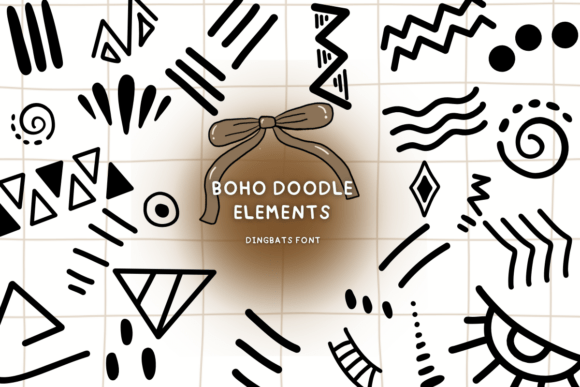
Unleashing Creativity with Boho Doodle Elements Font
Have you ever been in the middle of a design project, and suddenly, you’re stuck? You’re trying to find that perfect font to give your creation a unique touch, but nothing seems quite right. I recall a particularly frustrating moment when I was working on a wedding invitation design. My client wanted something that felt whimsical and personal, but I just couldn’t find the right fit. That’s when I discovered Boho Doodle Elements, a game-changing dingbats font that has since become a staple in my design toolkit.
What is Boho Doodle Elements?
Boho Doodle Elements is an innovatively rendered dingbats font that embodies a sketch-style aesthetic. This unique font is perfect for adding a touch of personality to a wide range of projects, from enchanting wedding invitations to personalized DIY crafts. With its distinctive charm, Boho Doodle Elements can elevate decorative elements or become the signature style of your logo.
- ✨ Unique and quirky design that’s perfect for adding a personal touch to projects
- ✅ Extensive library of glyphs and symbols to choose from
- 🎨 Highly versatile and adaptable to different design styles and themes
While Boho Doodle Elements is an amazing font, there are a few things to keep in mind:
- 🤔 Some glyphs may require manual adjustment to fit perfectly within your design
The creator of Boho Doodle Elements drew inspiration from the world of art and design. With a passion for unique and eclectic styles, they aimed to create a font that would allow designers to add a personal touch to their projects. The result is a font that’s both playful and sophisticated, perfect for a wide range of creative applications.
| Font Name | Boho Doodle Elements Font |
| Author | Bee piyanuch |
| What type of projects is Boho Doodle Elements best suited for? | Boho Doodle Elements is perfect for a wide range of projects, including wedding invitations, DIY crafts, logos, and decorative elements. |